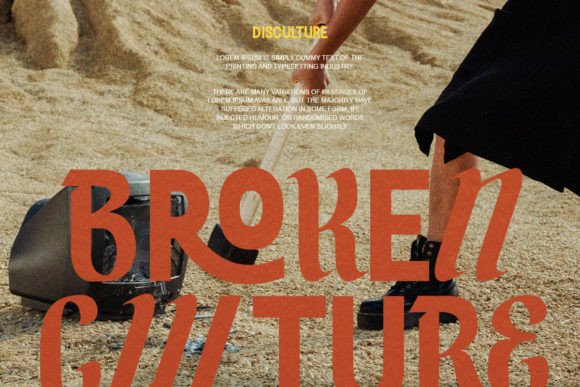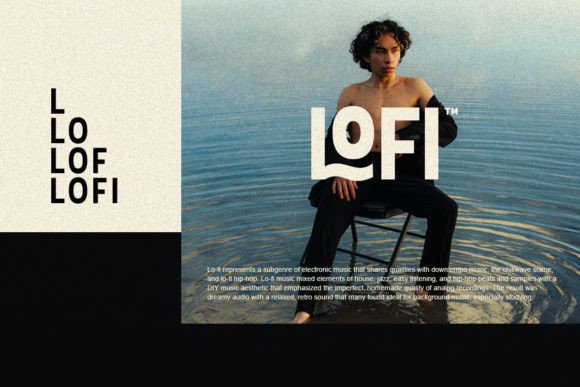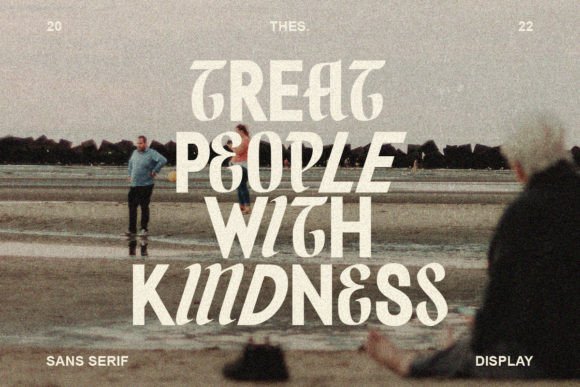
Introduction to Sacred Crowns Font
Remember that moment when you’re brainstorming ideas for a creative project and you’re stuck on the perfect font to convey your message? The search for the perfect design resource can be overwhelming, especially when you’re working on a project with a specific aesthetic in mind. But what if you could find a font that’s not only beautiful but also versatile and modern?
Enter the Sacred Crowns Font, a high-quality display font that combines the elegance of sans with the drama of blackletter. With its unique and stylish design, this font is sure to elevate any project you add it to, whether it’s a design for a transparent background or a bold statement for a creative campaign. And the best part? It’s available for free download, making it a valuable asset for designers looking to take their projects to the next level.
So, are you ready to discover the power of Sacred Crowns Font and unlock new possibilities for your creative projects?
Key Features of Sacred Crowns Font
- High-quality design resource ideal for creative projects, including fantasy and medieval-themed artwork.
- Includes a wide range of characters, including uppercase and lowercase letters, numbers, and special symbols.
- Unique, ornate design elements and flourishes add a touch of elegance and sophistication to any creative project.
- Perfect for use in graphic design, digital art, and typography projects where a high-quality, premium font is required.
Honest Review: Sacred Crowns Font
I recently had the chance to work with the Sacred Crowns Font, and I must say it’s been a game-changer for my creative project. This font is a high-quality design resource that offers a unique and elegant touch to any design.
What works well with this font is its versatility. It can be used for both modern and traditional designs, making it a great addition to any designer’s toolkit. The font’s transparent background allows for easy customization and blending with other design elements. Plus, it’s free to download, making it an affordable option for designers on a budget.
- ✨ Unique and elegant design
- ✨ Versatile and can be used for various design styles
- ✨ High-quality and professional-looking
However, there are some limitations to consider. The font may not be suitable for very small text sizes, and some users have reported issues with font rendering on certain devices.
Overall, I’m impressed with the Sacred Crowns Font. It’s a valuable addition to any designer’s arsenal, and I would definitely recommend it for any creative project that requires a touch of elegance and sophistication.
The Sacred Crowns Font is a high-quality, free download that can elevate any creative project. This versatile font is perfect for designers and artists looking for a unique and eye-catching design element.
Use the Sacred Crowns Font in conjunction with a transparent background to create a unique and eye-catching design. Experiment with different font sizes and styles to add depth and visual interest to your project.
The Sacred Crowns Font is perfect for a variety of creative projects, including branding, marketing materials, and graphic design. Its high-quality design and free download make it an ideal choice for designers and artists looking for a unique and professional font.